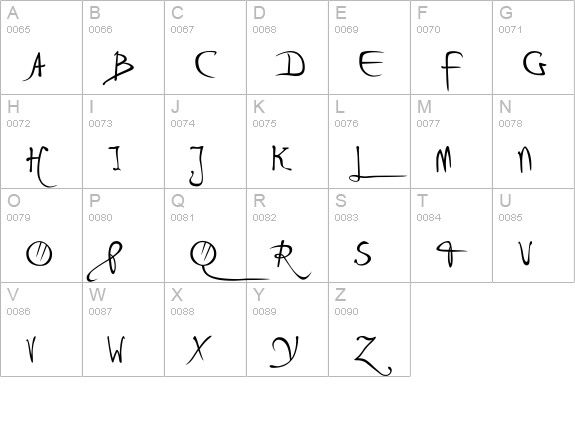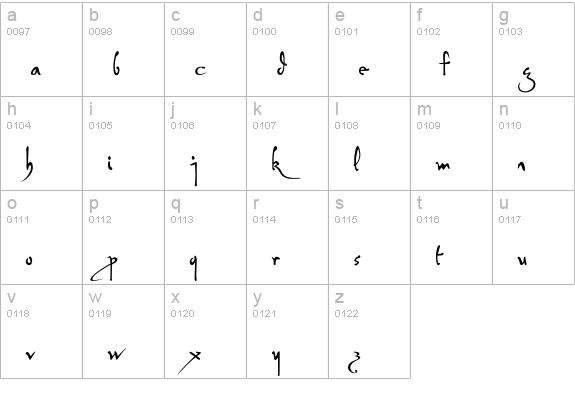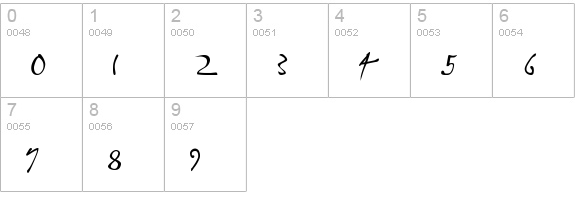
P22 Da Vinci Forward Font Details
P22 Da Vinci Forward font is a captivating and versatile typeface that pays homage to the genius of Leonardo da Vinci. With its elegant and intricately designed letterforms, this font captures the essence of Da Vinci's artistic mastery and intellectual curiosity. The P22 Da Vinci Forward font is a perfect blend of old-world charm and contemporary sophistication. Its unique and fluid strokes effortlessly blend together, creating a harmonious and balanced visual experience. Each character is meticulously crafted, showcasing the attention to detail that Da Vinci himself would have admired. This font is not only visually appealing but also highly functional. Its legibility and readability make it suitable for a wide range of design projects, including branding, advertising, packaging, and more. Whether used in headlines, body text, or as artistic accents, the P22 Da Vinci Forward font adds a touch of elegance and sophistication to any design. One of the best things about the P22 Da Vinci Forward font is that it is freely available to download at FontsMarket.com. This means that designers and creatives can easily access and utilize this remarkable font without any cost. It's a fantastic opportunity to enhance your design projects with a touch of Da Vinci's brilliance, all while keeping your budget intact. Embrace the timeless beauty and creativity of Leonardo da Vinci with the P22 Da Vinci Forward font. With its captivating design and versatile application, this font is sure to elevate your design projects to new heights. Download it for free today at FontsMarket.com and let your creativity soar.